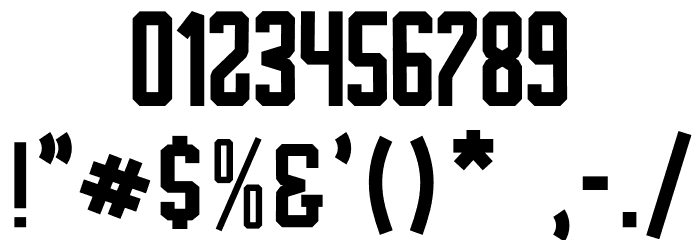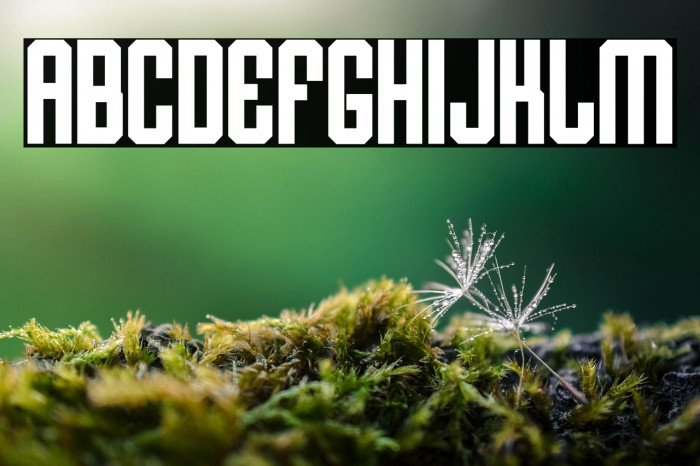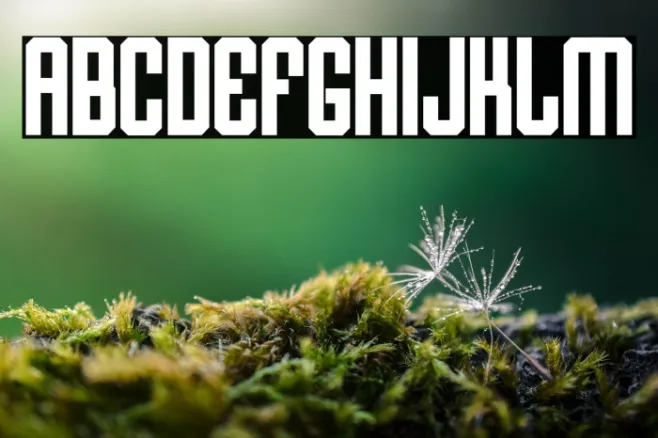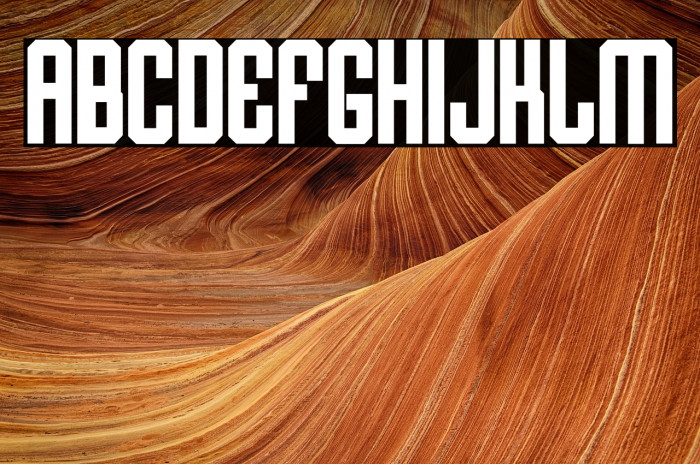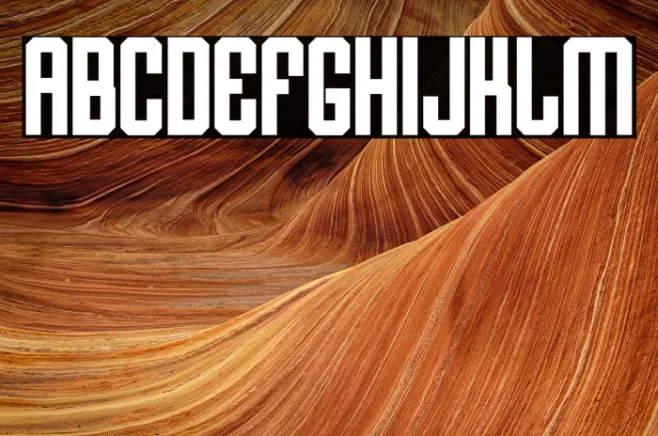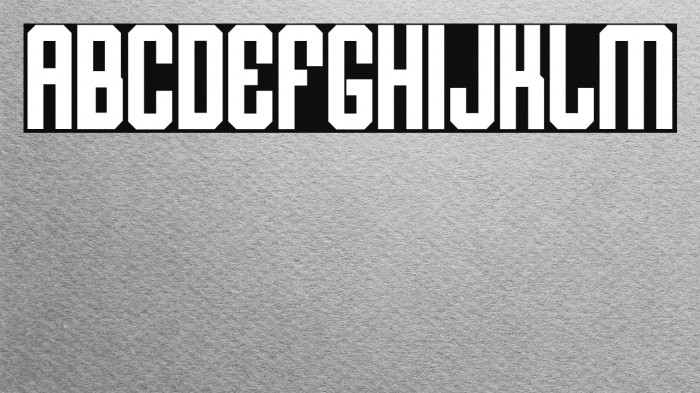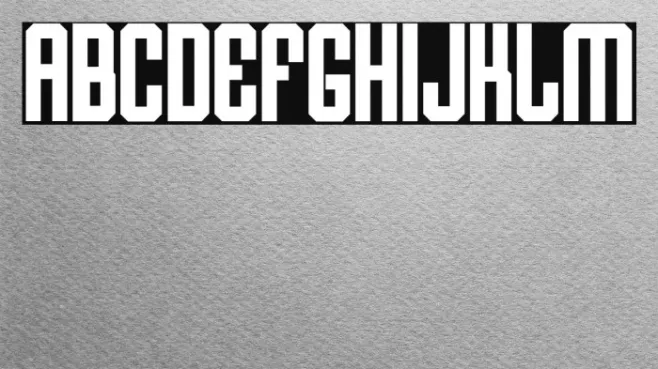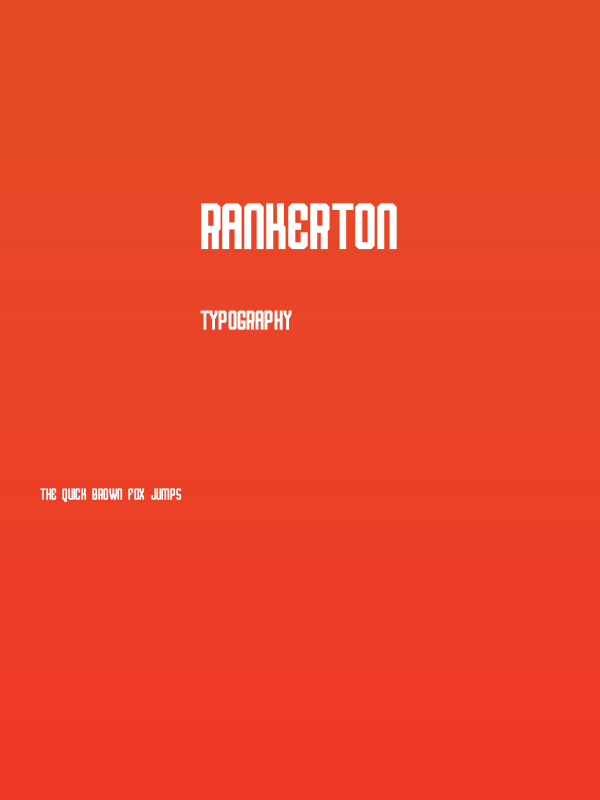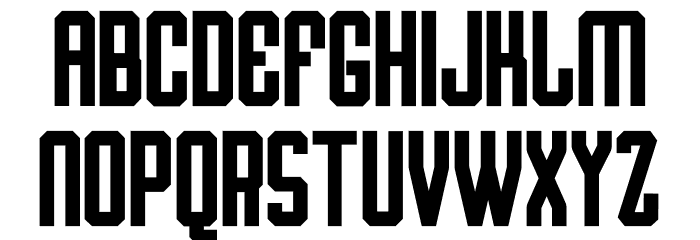
Rankerton Font
Rankerton Description
This font features a bold, geometric design with a strong presence. The characters are constructed with straight lines and sharp angles, giving it a modern and industrial feel. The uppercase letters are uniform in height, while the numbers and special characters maintain the same boldness and angularity. The font's style is reminiscent of architectural or mechanical design, making it stand out with its unique and striking appearance.
| Proposed Projects | Ideal for branding, posters, headlines, and any design that requires a strong, impactful typeface. |